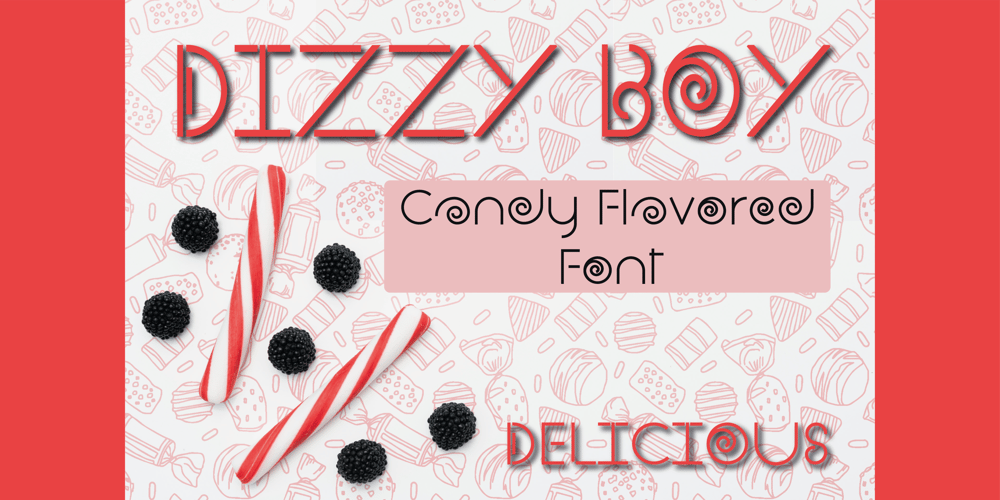
Dizzy Boy Font Family was designed by El Mehdi CHOUYOUKH and published by Mchcrafter. Dizzy Boy contains 1 styles and family package options. Dizzy Boy is a cool and thin lettered display font. It can easily be matched to an incredibly large set of projects, so add it to your creative ideas and notice how it makes them stand out!